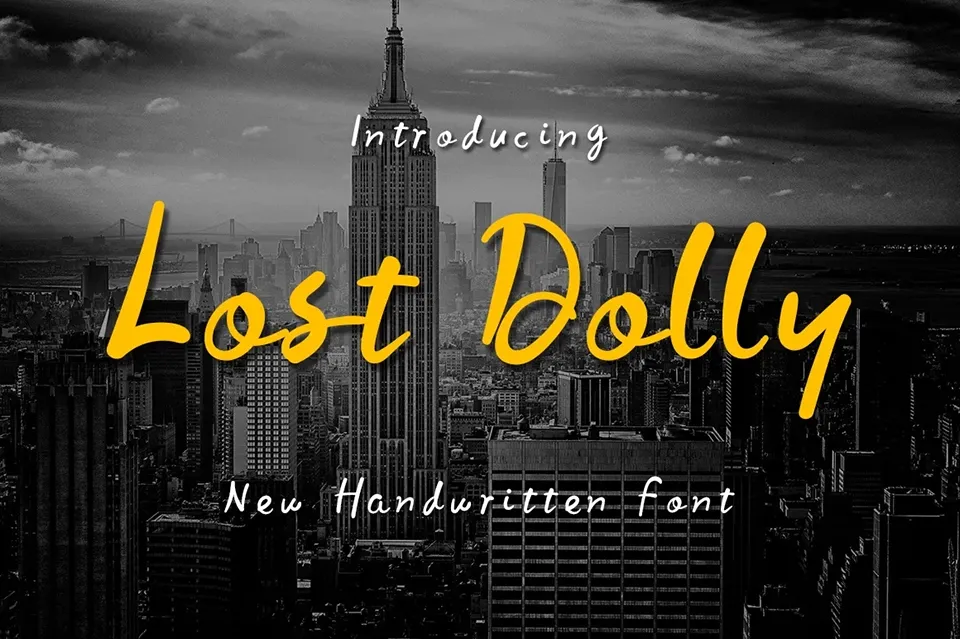
Lost Dolly Font
Lost Dolly Font is a new handwritten font that brings a fresh, personal touch to your designs. This script-style typeface features flowing, connected letterforms with a natural and casual elegance. Its charming, handcrafted appearance makes it ideal for a variety of creative projects, including branding, invitations, logos, social media graphics, and quotes. Lost Dolly infuses text with warmth and personality, offering a distinctive look that feels both approachable and stylish, perfect for designs needing an authentic, handwritten feel.